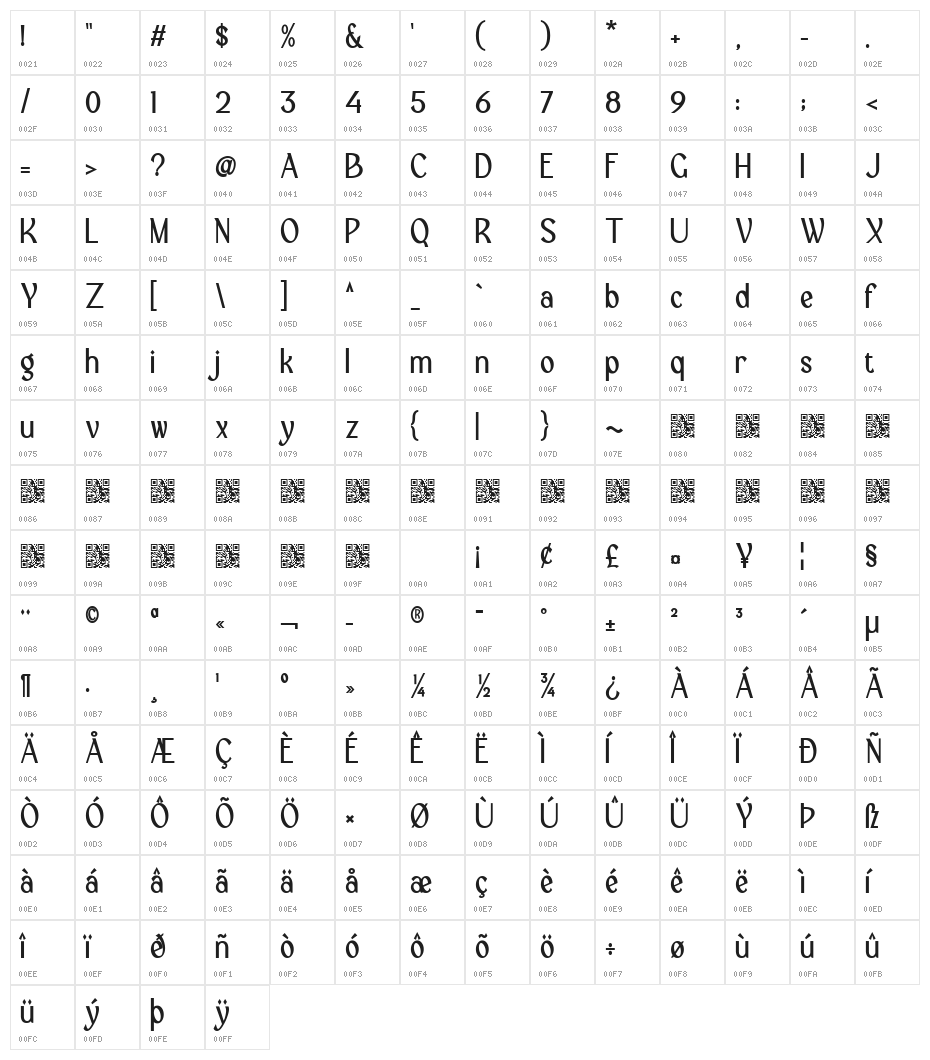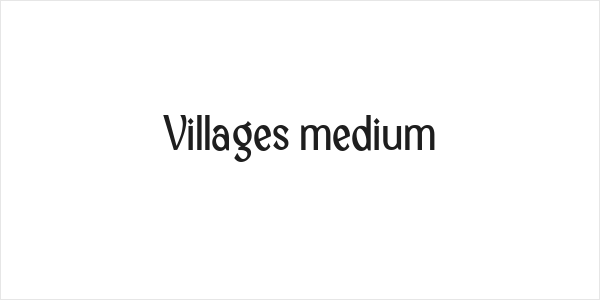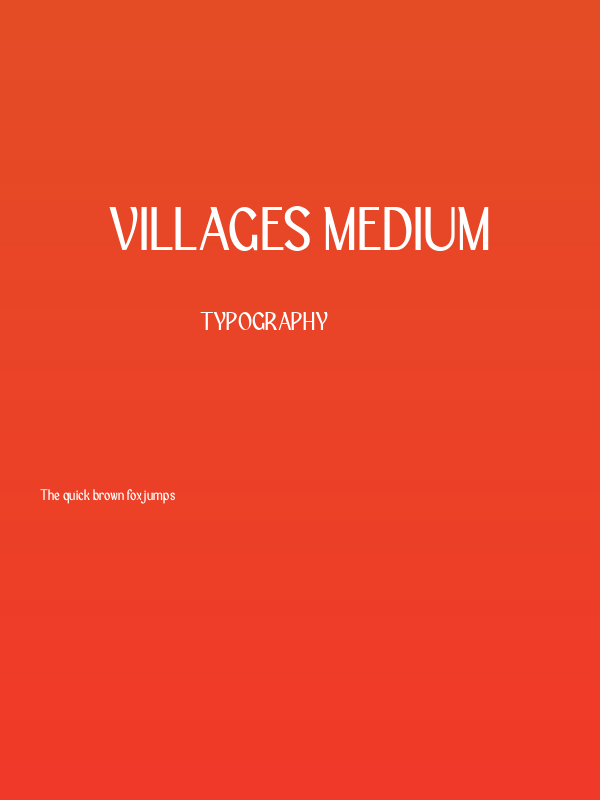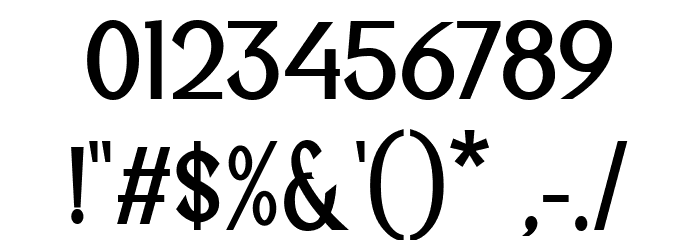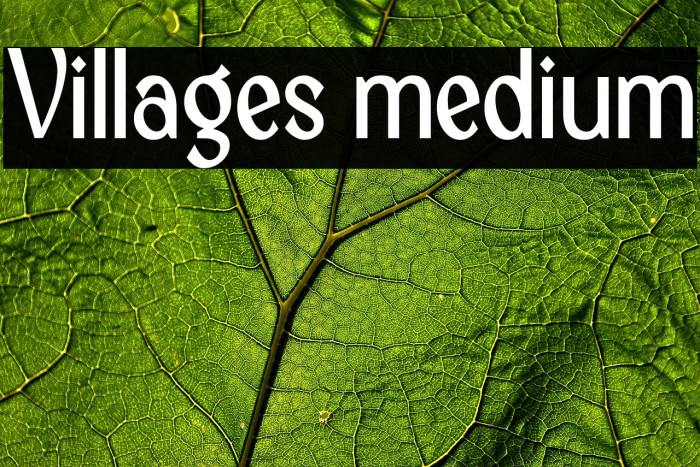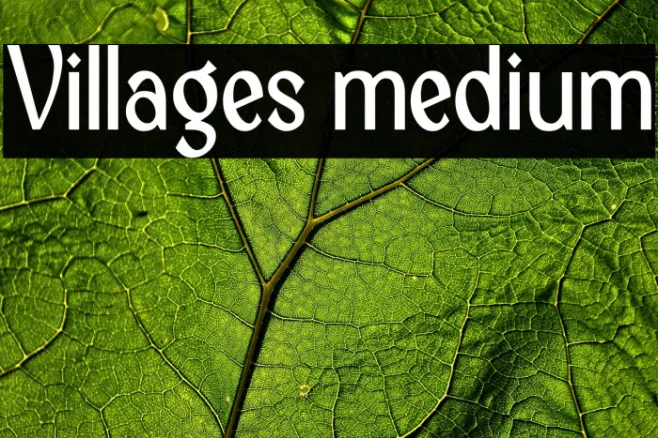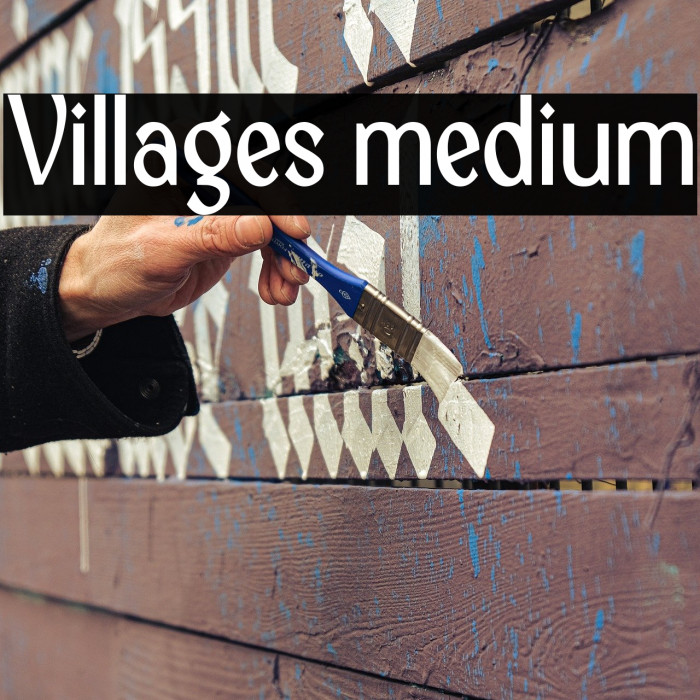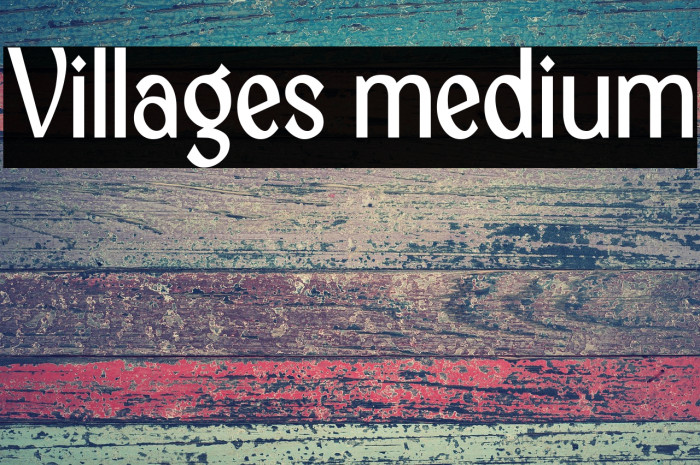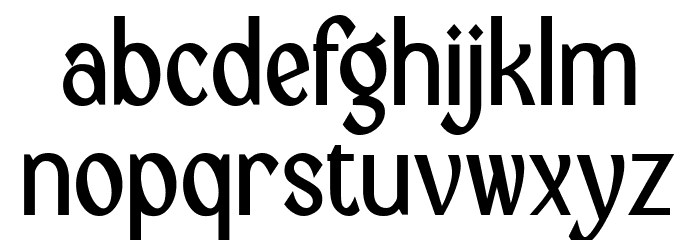
Villages medium Font
Villages medium Description
This typeface features a clean and modern design with a touch of elegance. The uppercase letters are tall and slightly condensed, giving a sense of sophistication and authority. The lowercase letters maintain a consistent height, with smooth curves and a balanced structure. The numerals are clear and legible, making them suitable for various applications. Special characters are well-integrated, maintaining the overall aesthetic of the font. The consistent stroke width throughout the characters provides a harmonious appearance, making it versatile for both digital and print media.